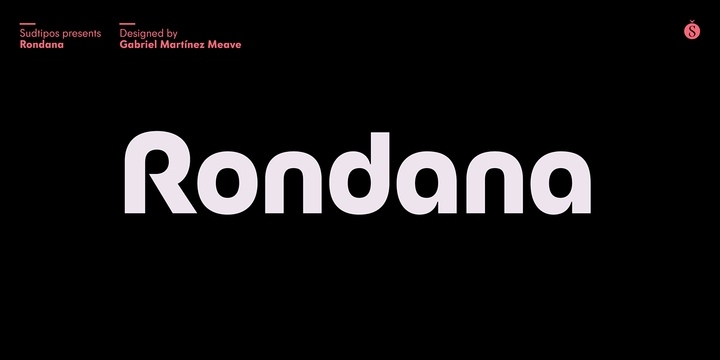
Rondana Font
Rondana Font is perfect for children's brand identities, educational app interfaces, playful product packaging, family-friendly restaurant signage, toy company branding, creative workshop materials, friendly healthcare communications, community center advertising, wholesome food products, and cheerful social campaigns.
What makes Rondana Font so exciting is its extraordinary ability to create instant warmth and accessibility through perfectly rounded letterforms that seem to embrace viewers with their gentle, welcoming curves and friendly personality. This delightful typeface captures the essence of human connection and approachable design with characters that radiate positivity, trust, and inclusive appeal. The font's harmonious design elements perfectly balance playful charm with professional reliability, creating a versatile tool that communicates friendliness, accessibility, and genuine care, making it indispensable for brands and organizations that prioritize human connection and community building.
Rondana Font comes in multiple font families including Regular, Bold, Light, Italic, Bold Italic, Soft, Medium, and Rounded variations. Each family member maintains the core friendly characteristics while offering different warmth levels and stylistic approaches to suit various approachable design requirements.
The gentle curvature in Rondana Font makes it particularly suitable for organizations serving families, children, and communities where creating welcoming, non-threatening environments is essential for building trust and encouraging participation. Its friendly letterforms maintain excellent readability while preserving the approachable charm that appeals to audiences seeking genuine, caring service providers and inclusive experiences.
Community-focused marketing professionals appreciate how Rondana Font transforms ordinary communications into warm invitations to connection and participation. The typeface's caring character set includes special community symbols and inclusive elements that enhance the overall welcoming atmosphere of any people-centered project.
For creative professionals serving educational institutions, family brands, and community organizations, Rondana Font serves as the perfect foundation for establishing memorable visual identities that capture the essential qualities of human warmth, inclusive accessibility, and genuine care that define successful community-building efforts and meaningful social connections.